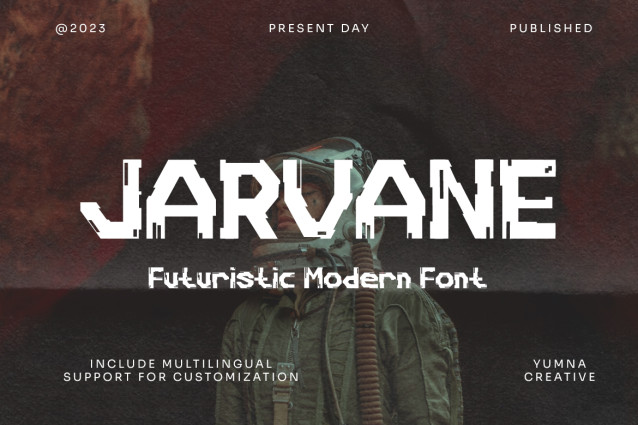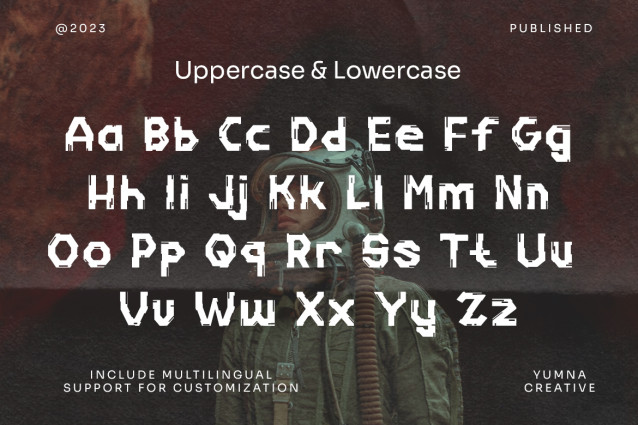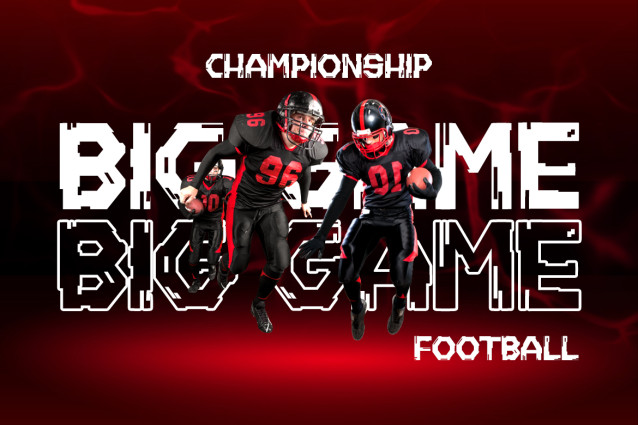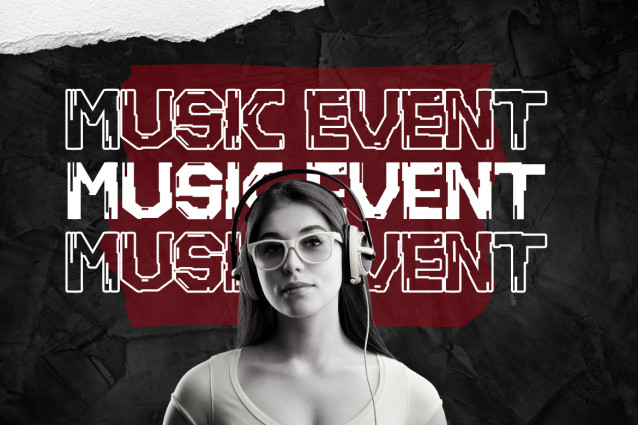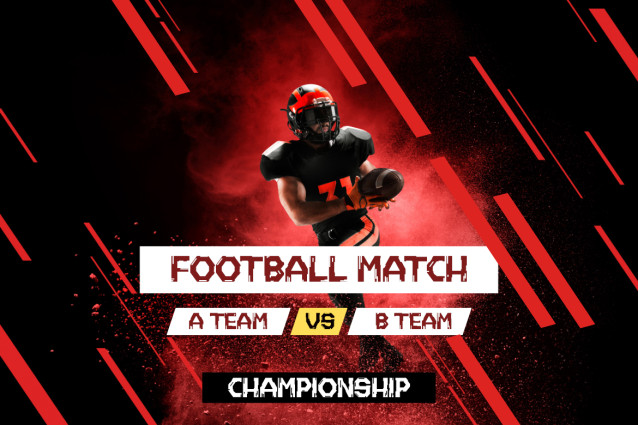
Jarvane Display Font
Jarvane Display Font – This Font can be used for various purposes such as Magazine Title, Poster, Logo, T-Shirt, Sub Title, Business cards, Magazines, Book Covers, Wedding Invitations,Templates Instagram Story Post, Greeting Cards, Quotes, etc.